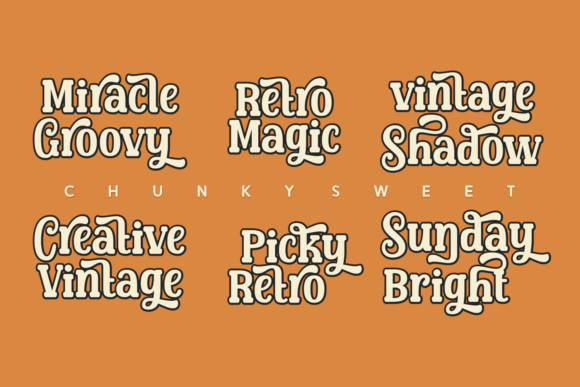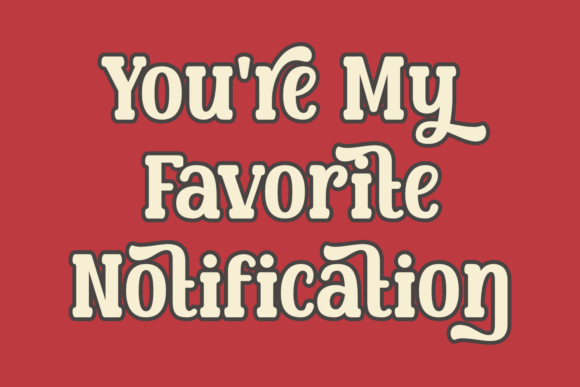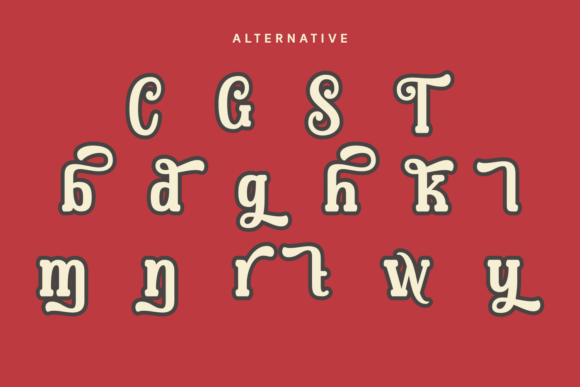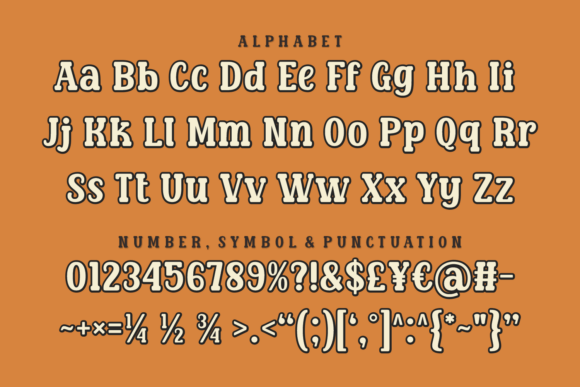
Introducing Chunky Sweet Retro Font: A Timeless Blend of Vintage Elegance and Modern Flair
Immerse yourself in a creative journey with ‘Chunky Sweet Retro’ font, an embodiment of the flamboyant 70s and classic vintage elegance. This display of nostalgia with a modern twist is perfect for crafting sublimations or for use on your Cricut device. Infused with fashion-forward style and uniqueness, it allows your brand to shine whether in print or on-screen.
A Font that Transcends Seasons and Styles
‘Chunky Sweet Retro’ font is designed to add pizzazz to your t-shirt designs and banners. It promises astounding legibility across all social media platforms and stands out prominently in any serif or sans-serif context. With a playful, chunky structure yet elegant script, ‘Chunky Sweet Retro’ is perfect for every season – from the bloom of spring to the chill of winter.
A Versatile Font for Designers and Crafters
Whether you’re looking for a trendy or funky font, the ‘Chunky Sweet Retro’ font tells a tale as enchanting as handwriting. It doubles as a set of delightful dingbats and strikingly decorative elements every style enthusiast will crave. Its beauty transcends the ordinary, making it an ideal choice for:
What Makes Chunky Sweet Retro Font Stand Out?
Here are some key features that make ‘Chunky Sweet Retro’ font a standout choice:
- Unique blend of vintage and modern styles: This font seamlessly merges the classic elegance of the past with the modern flair of the present.
- Fashion-forward design: The chunky, playful structure and elegant script make it perfect for fashion-forward designs.
- High legibility: The font promises astounding legibility across all social media platforms and in various contexts.
- Delightful dingbats and decorative elements: The font comes with a set of delightful dingbats and strikingly decorative elements to enhance your designs.
Tips for Using Chunky Sweet Retro Font
Here are some tips to help you get the most out of ‘Chunky Sweet Retro’ font:
- Use it for headlines and titles: The font’s chunky structure and elegant script make it perfect for headlines and titles.
In conclusion, ‘Chunky Sweet Retro’ font is a timeless blend of vintage elegance and modern flair that is perfect for designers and crafters looking to add a touch of nostalgia and sophistication to their designs. With its unique blend of chunky and elegant styles, high legibility, and delightful dingbats and decorative elements, this font is sure to become a favorite in your design arsenal.